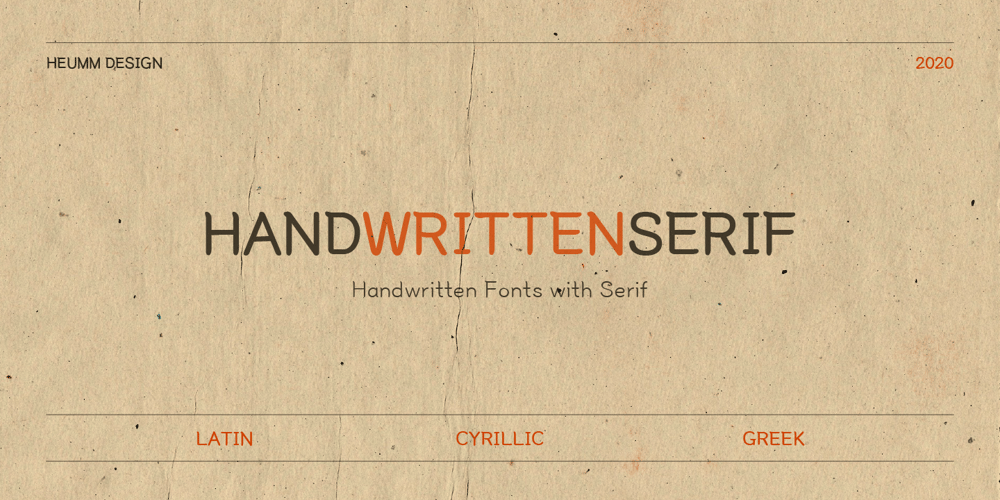
HU Hand Serif
HU Hand Serif font
HU Hand Serif Font Family was designed by Haerin Lee, Yehyeong Lee, ByoungHeon Park and published by Heummdesign. HU Hand Serif contains 3 styles and family package options. HU Hand Serif is a handwritten font with serif. Rather than having straight strokes like san serif fonts, the strokes of alphabets are a little bit waved, which make it look unique and emotional. We recommend you to use this font for cozy, warm design and decoration.HU Hand Serif – рукописный шрифт с засечками. Вместо того, чтобы иметь прямые штрихи, как у шрифтов с засечками, штрихи алфавитов немного волнистые, что делает его уникальным и эмоциональным. Рекомендуем использовать этот шрифт для уютного, теплого дизайна и украшения.HU Hand Serif Cyrillic включает латинские алфавиты HU Hand Serif Latin.Το HU Hand Serif είναι μια χειρόγραφη γραμματοσειρά με serif. Αντί να έχουν ευθείες πινελιές όπως γραμματοσειρές san serif, οι πινελιές των αλφαβήτων είναι λίγο κυματιστές, γεγονός που το καθιστά μοναδικό και συναισθηματικό. Σας προτείνουμε να χρησιμοποιήσετε αυτήν τη γραμματοσειρά για άνετο, ζεστό σχεδιασμό και διακόσμηση.Το HU Hand Serif Greek περιλαμβάνει λατινικά αλφάβητα του HU Hand Serif Latin.Contact : heummdesign@heumm.com